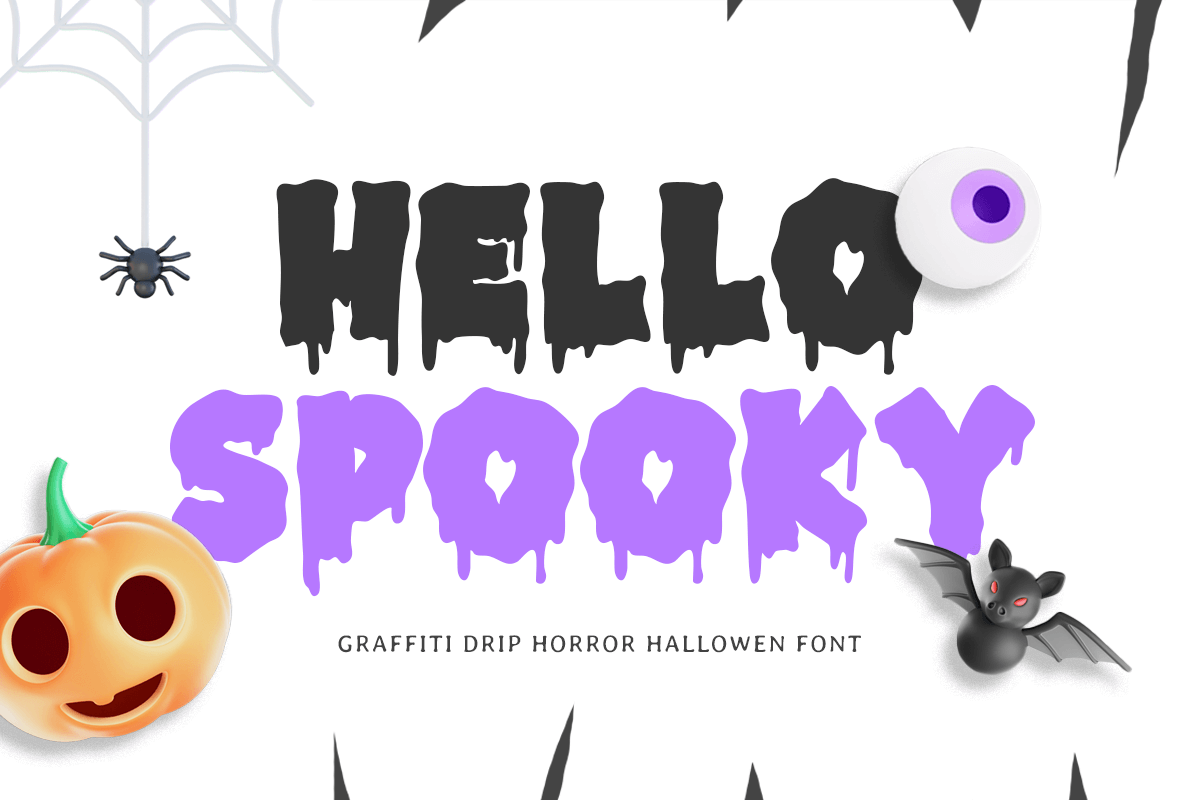
Hello Spooky
-Horror Halloween Font
Hello Spooky - Horror Halloween Font
HELLO SPOOKY is a horror Halloween font crafted to bring a spooky, playful vibe to your designs. Ideal for Halloween party posters, greeting cards, social media graphics, and seasonal branding, this font combines eerie charm with legibility.
With quirky, haunted-inspired letterforms, HELLO SPOOKY adds a fun and festive touch to any project. Its bold display style ensures your Halloween designs grab attention while keeping a creative edge.
HELLO SPOOKY – Horror Halloween Font Features
• Fun and spooky character set
• Perfect for Halloween-themed designs and posters
• Uppercase, lowercase, numerals, and punctuation included
• OpenType features for extra versatility
Features
• Uppercase & Lowercase
• Number & Punctuation
• Opentype Features
• PUA Encode
• Multilingual Language
• Alternate Characters
• Ligature Collections